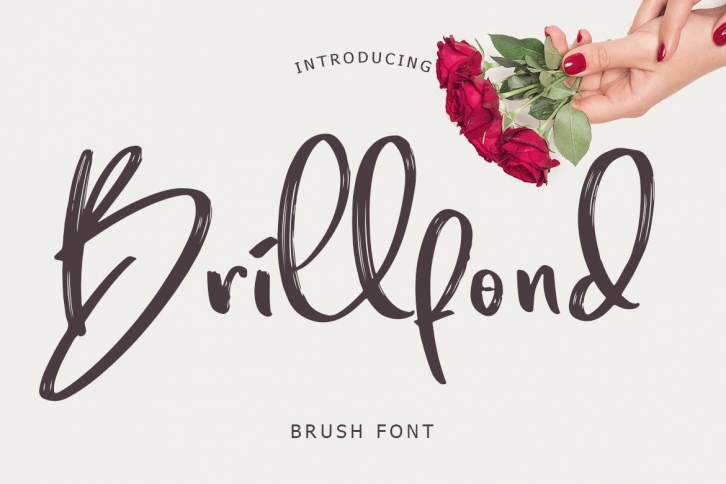
Brillfond is a trendy and unique font with an authentic style. It was designed by Lyth Creative and it's a great choice for creative people who need such a font. It was released on May 8, 2020 and the file size is 16.17 MB. Brillfond will add an organic vibe to any design idea!